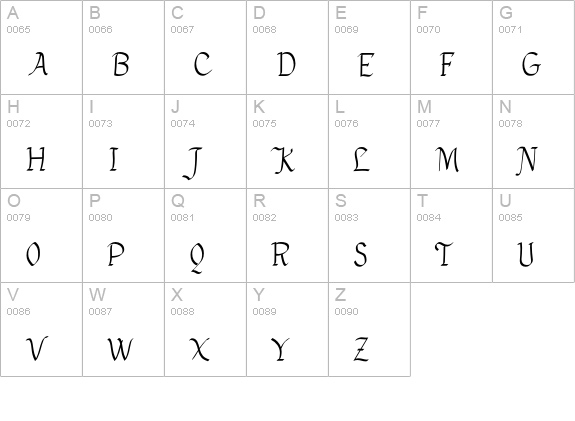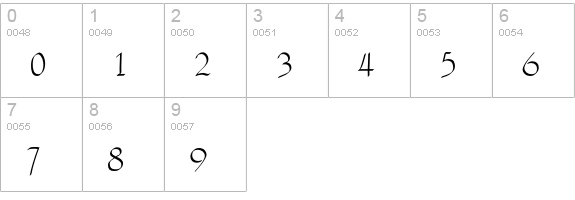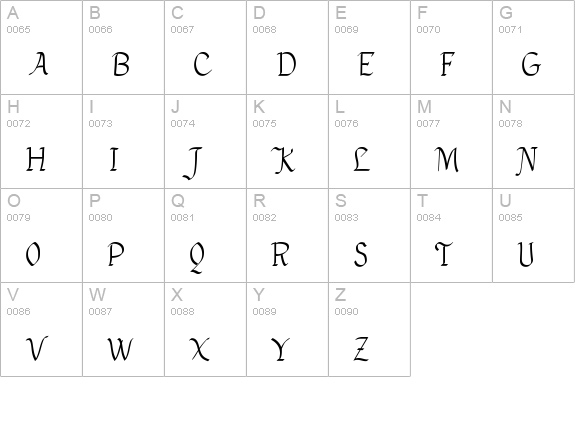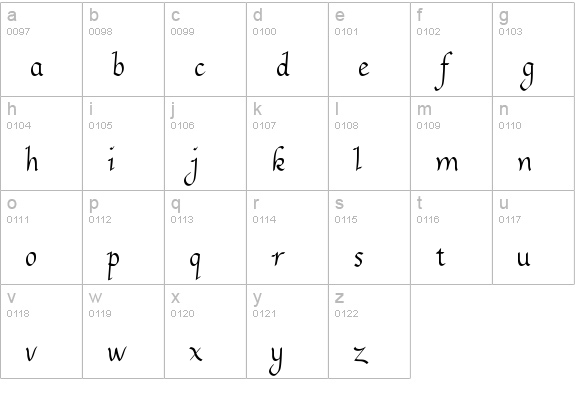
Faustus Font Details
Faustus font is a stunning serif typeface that exudes elegance and sophistication. With its classic and timeless design, this font is perfect for adding a touch of refinement to any project. The sleek lines and graceful curves of Faustus font make it a versatile choice for a wide range of design applications, from branding to editorial design. And the best part? Faustus font is available for free download at FontsMarket.com! Now you can add this beautiful font to your collection without breaking the bank. Don't miss out on the opportunity to elevate your designs with the beauty of Faustus font. Download it today and unleash your creativity!